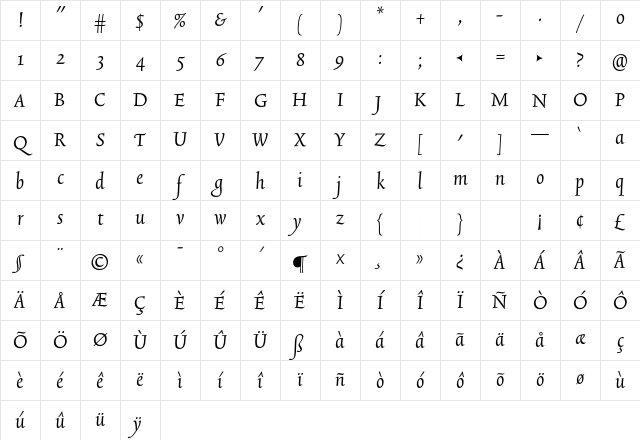
TriniteNo3 Italic
Design Context for TriniteNo3
TriniteNo3 is a composed and adaptable typeface that performs quietly and consistently across a wide range of design contexts. The slanted form adds forward momentum and visual energy.